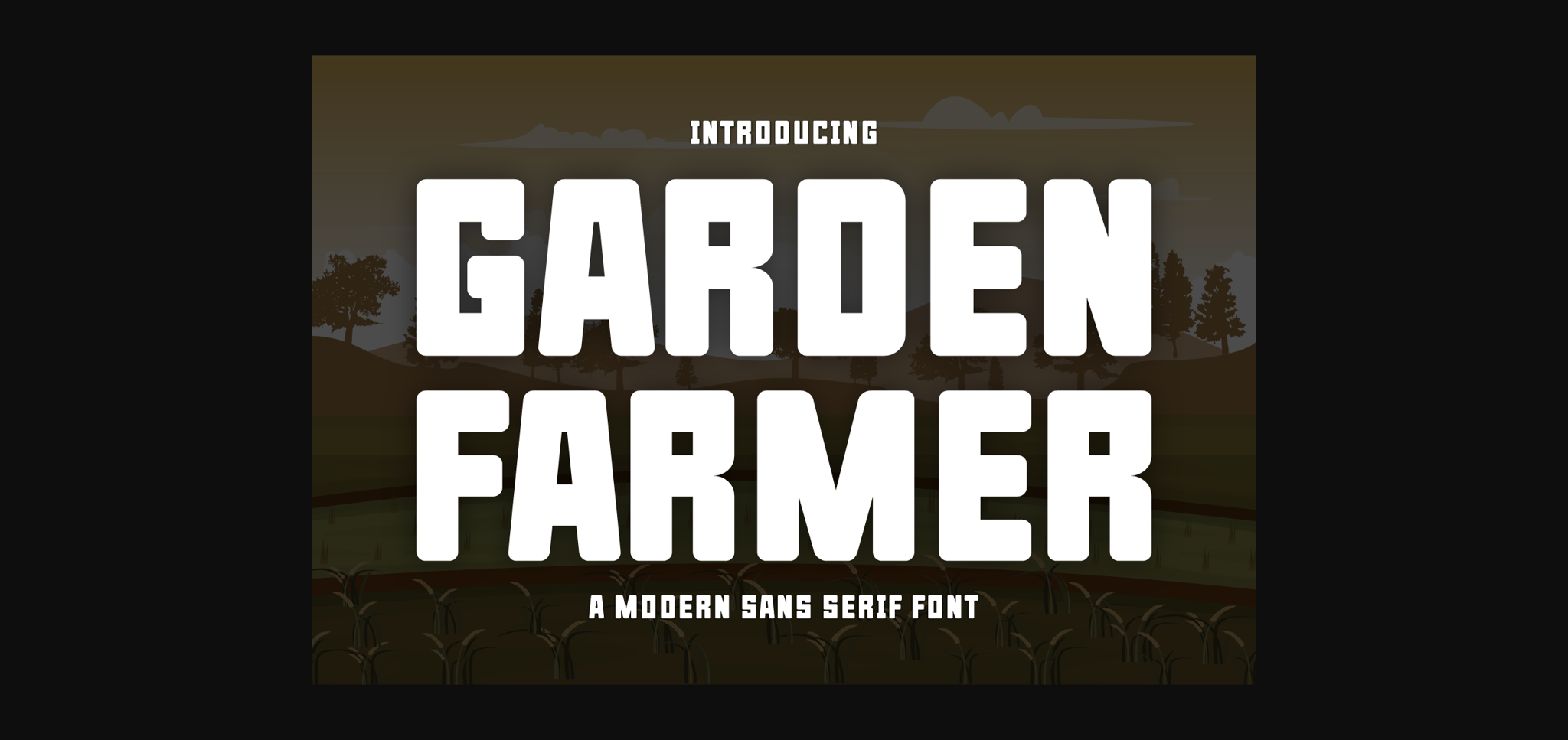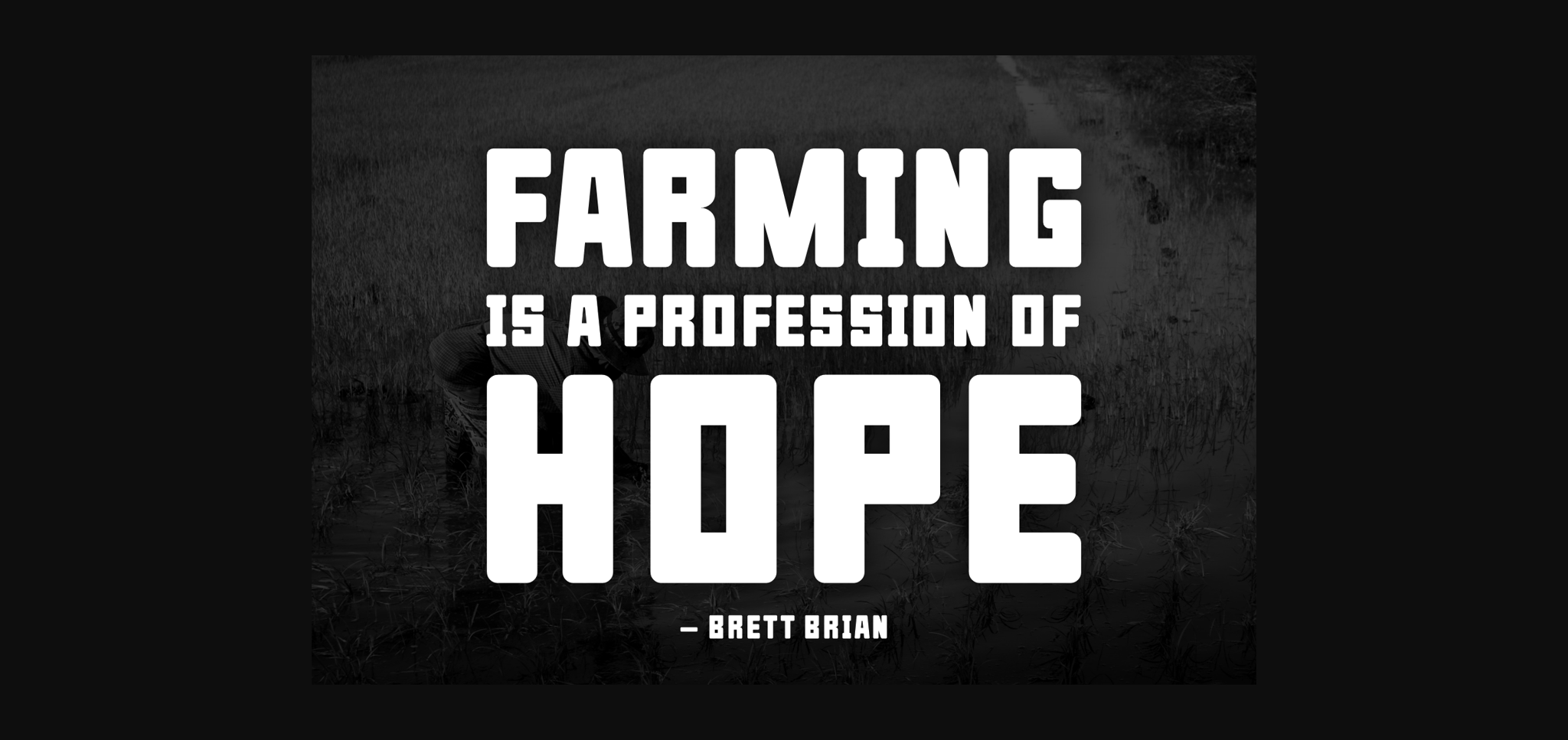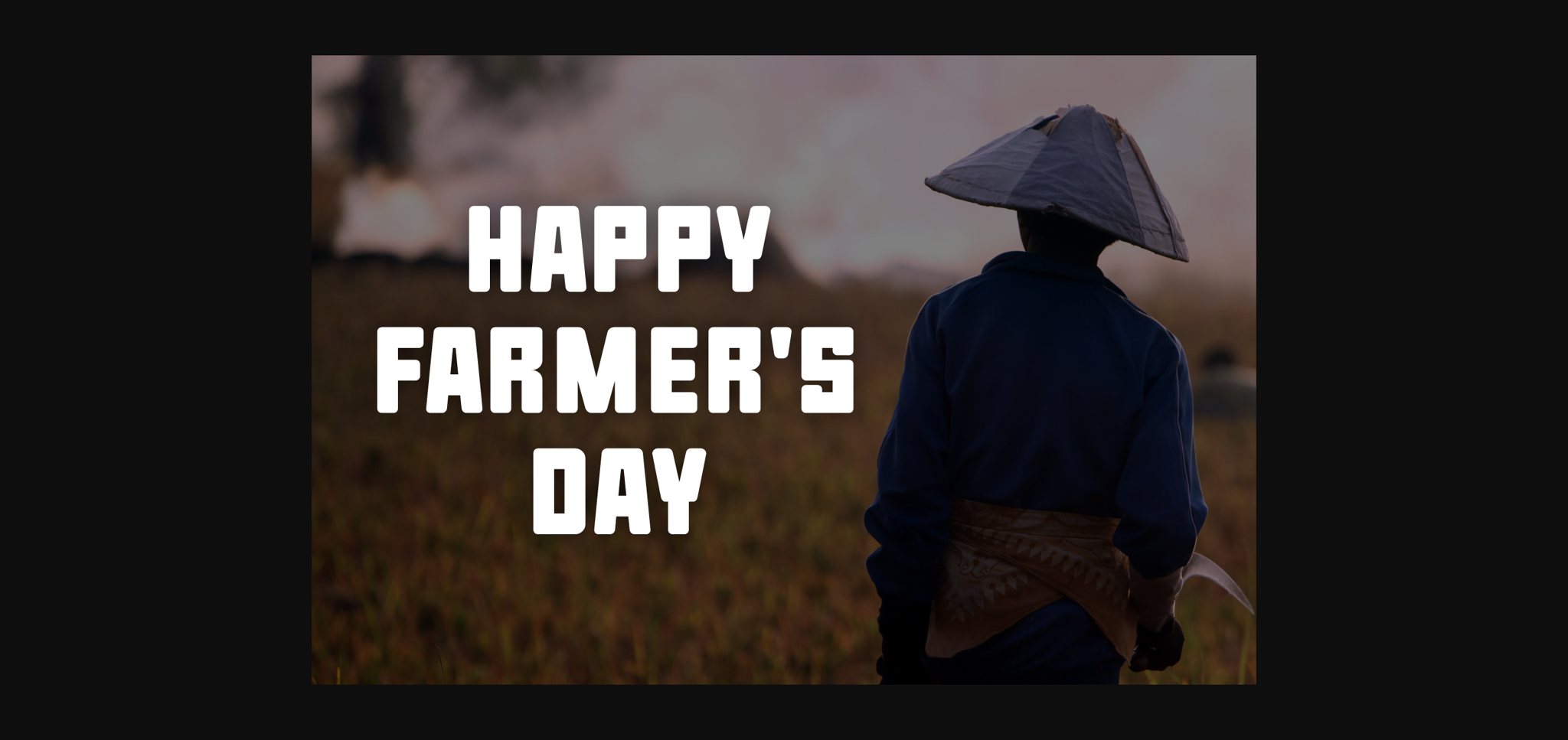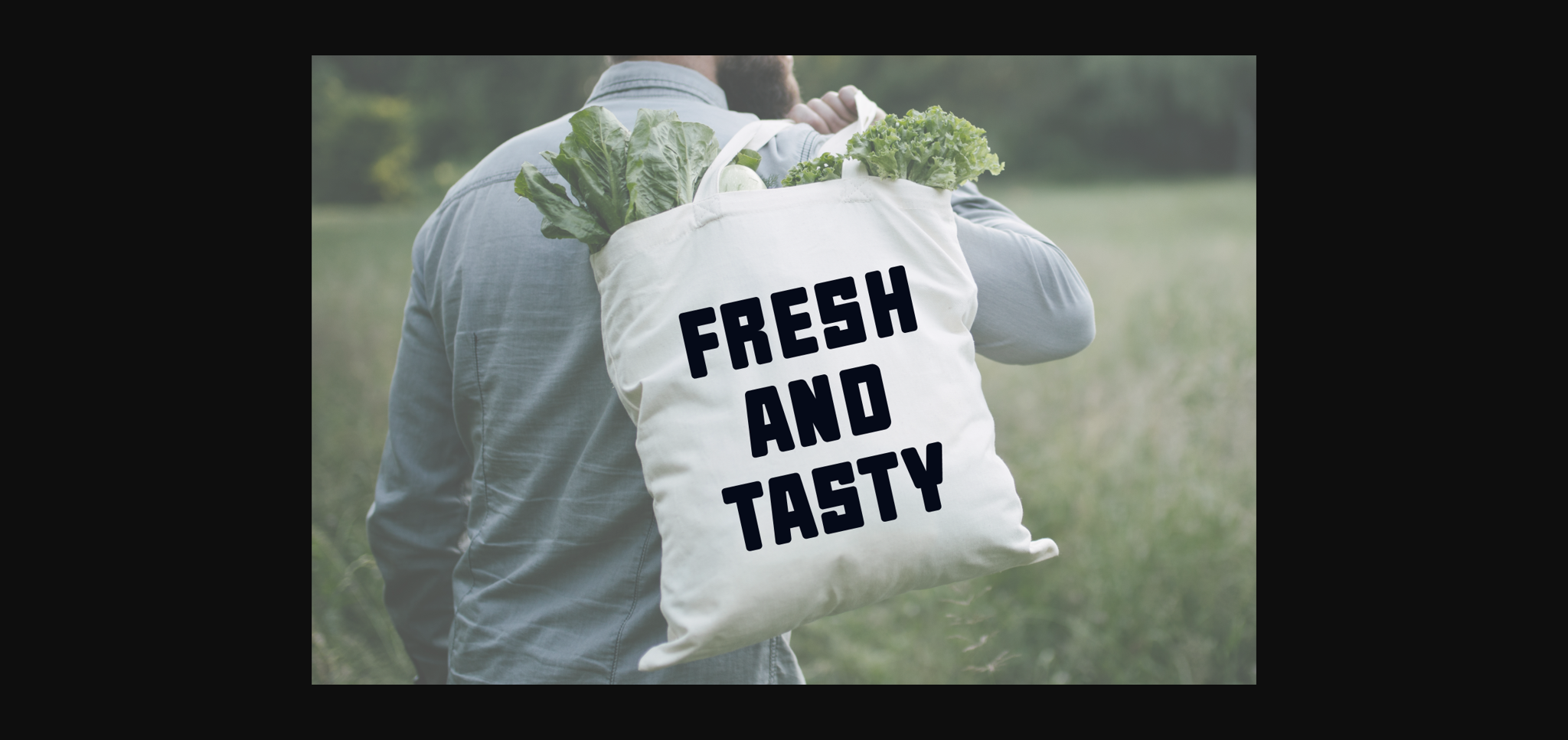
About Garden Farmer Font
Garden Farmer is a fresh and modern sans-serif font. It’s clean, easy to read, and perfect for various designs. Whether you’re working on logos, posters, or any other project, Garden Farmer adds a touch of contemporary style. With its simple yet elegant appearance, it’s sure to elevate your text beautifully.